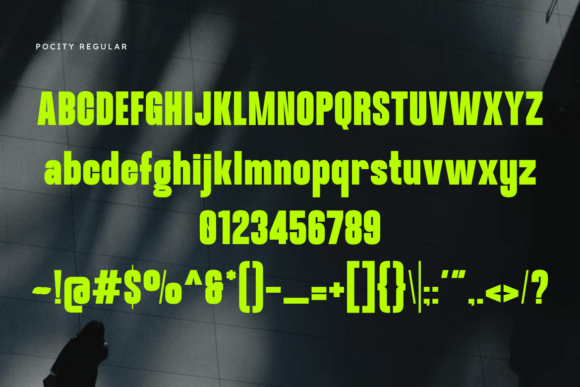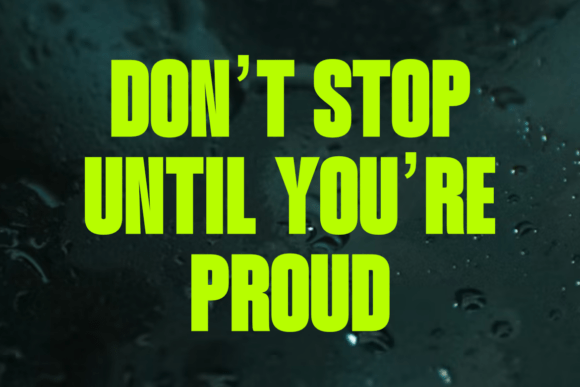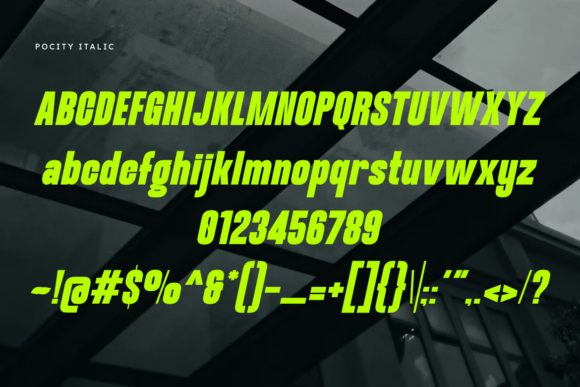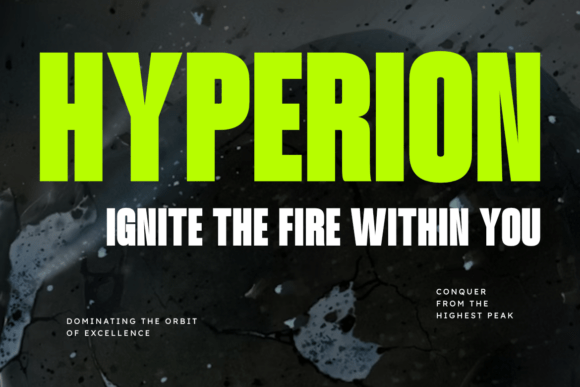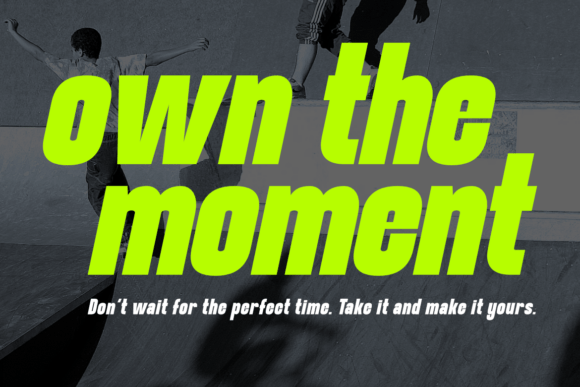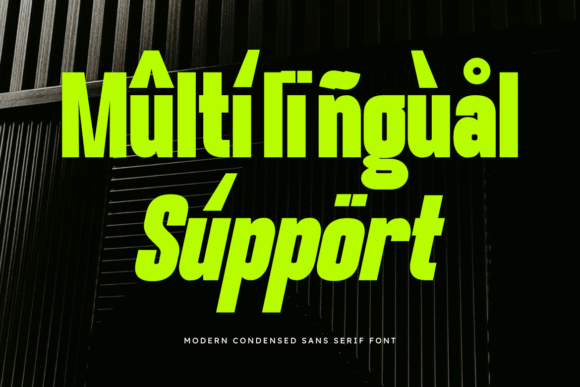
Introduction to Pocity Font Font
Fonts play a crucial role in design, and the Pocity Font font is a typeface that brings both character and versatility to any project. Whether you’re working on a branding project, a website, or a print design, the Pocity Font font offers a unique style that can elevate your work.
Pocity is a bold, high-impact modern condensed sans serif font designed for maximum visibility and a clean, contemporary aesthetic.
Featuring two distinct styles—Regular and Italic—this typeface offers great flexibility for various design needs Its solid, narrow letterforms and powerful structure make it an exceptional choice for dominant headlines, professional branding, social media graphics, and impactful poster designs.
Key Features of Pocity Font Font
Why Choose Pocity Font Font?
The Pocity Font font is more than just a typeface – it’s a design tool that helps you communicate your message with style and clarity. Its unique character set and versatile design make it suitable for a wide range of applications, from elegant invitations to bold headlines.
With its carefully crafted letterforms and balanced proportions, the Pocity Font font ensures readability and visual appeal across all mediums.
What makes Pocity Font font special?
The Pocity Font font stands out with its unique design, exceptional readability, and versatility across various design applications.